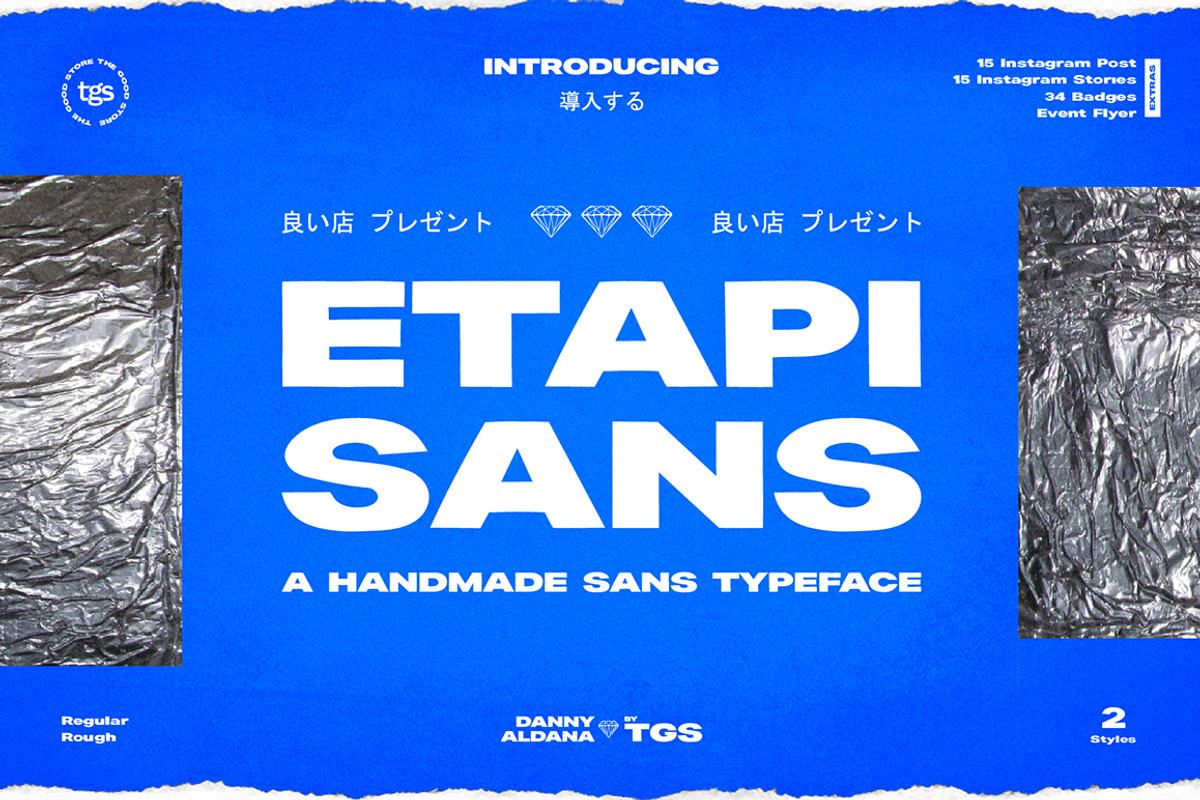
Etapi Sans Font + Extras Free Download is a clean, modern sans-serif typeface designed with versatility and minimalism in mind. Ideal for branding, editorial layouts, UI design, social media, and packaging, Etapi Sans delivers a sleek and professional look across all platforms.
With its balanced proportions and geometric influence, this font ensures clarity and readability while still maintaining a stylish edge. The extras included—such as icons, shapes, or design templates—make it even more useful for designers seeking an all-in-one visual toolkit.
Whether you're creating a bold logo or a polished website header, Etapi Sans Font + Extras Free Download is the perfect choice for clean, contemporary typography. Try the demo today and unlock modern elegance for your next project.